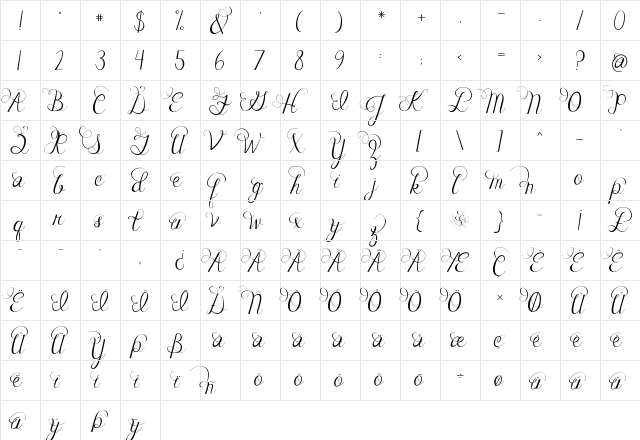
Janda Celebration Script Regular
Design Context for Janda Celebration Script Typeface
Janda Celebration Script brings a calligraphic fluidity to the page — its connecting strokes and expressive curves give it an unmistakably human quality.
Font Pairing: Combine Janda Celebration Script with a simple geometric sans for maximum contrast — the tension between flowing curves and clean structure is a classic typographic pairing.
Pro Tip: Pair Janda Celebration Script with a clean sans-serif for supporting text. The contrast between fluid script and geometric structure creates an elegant typographic hierarchy.